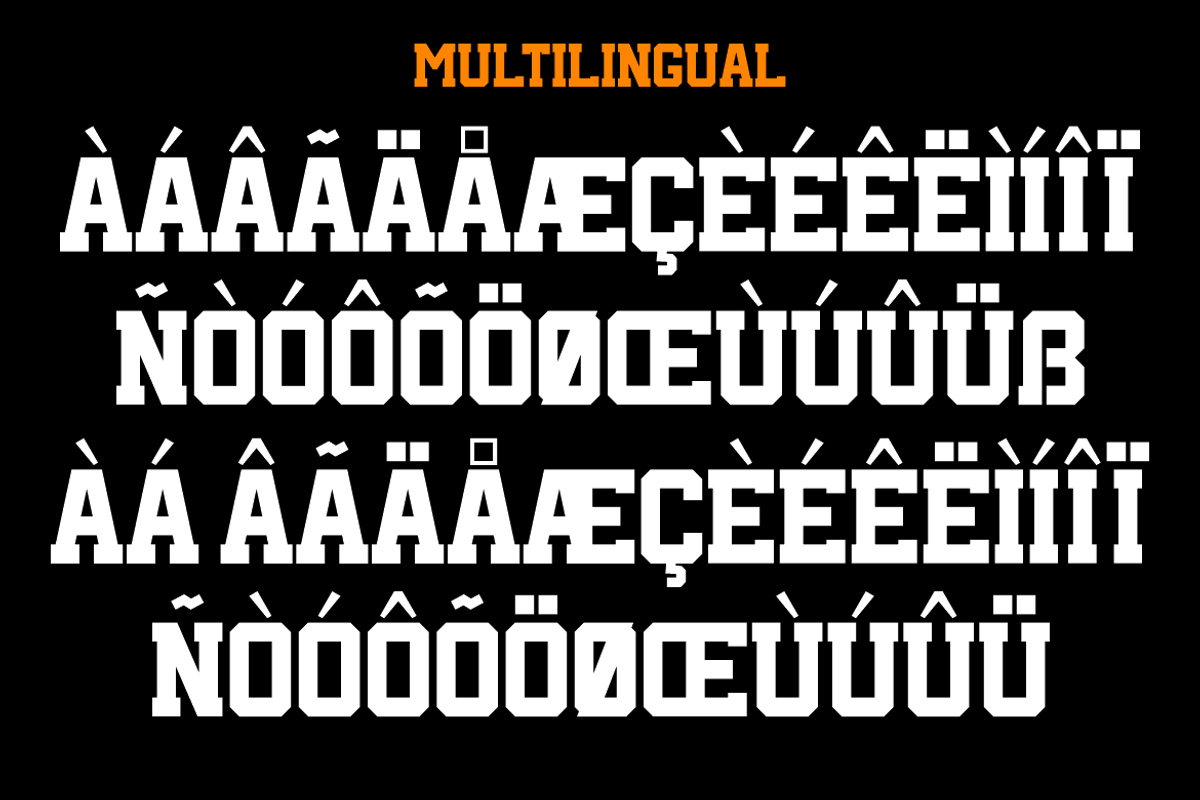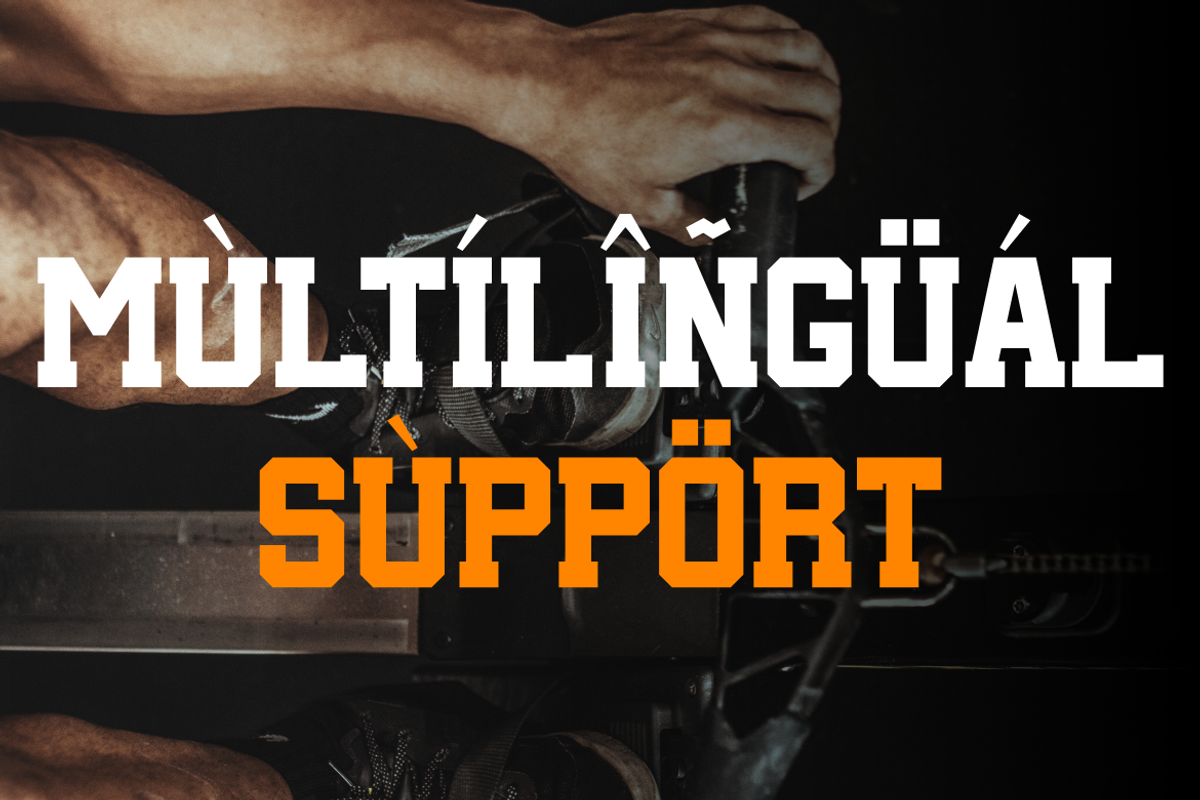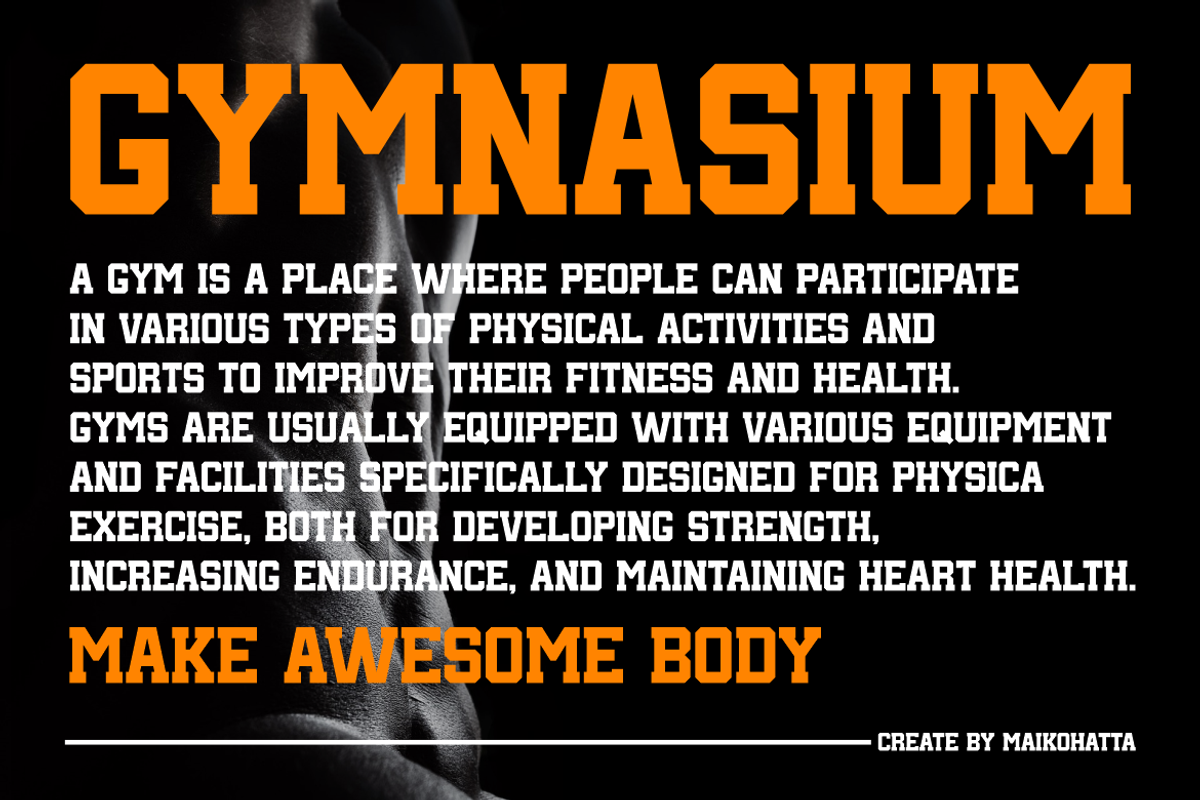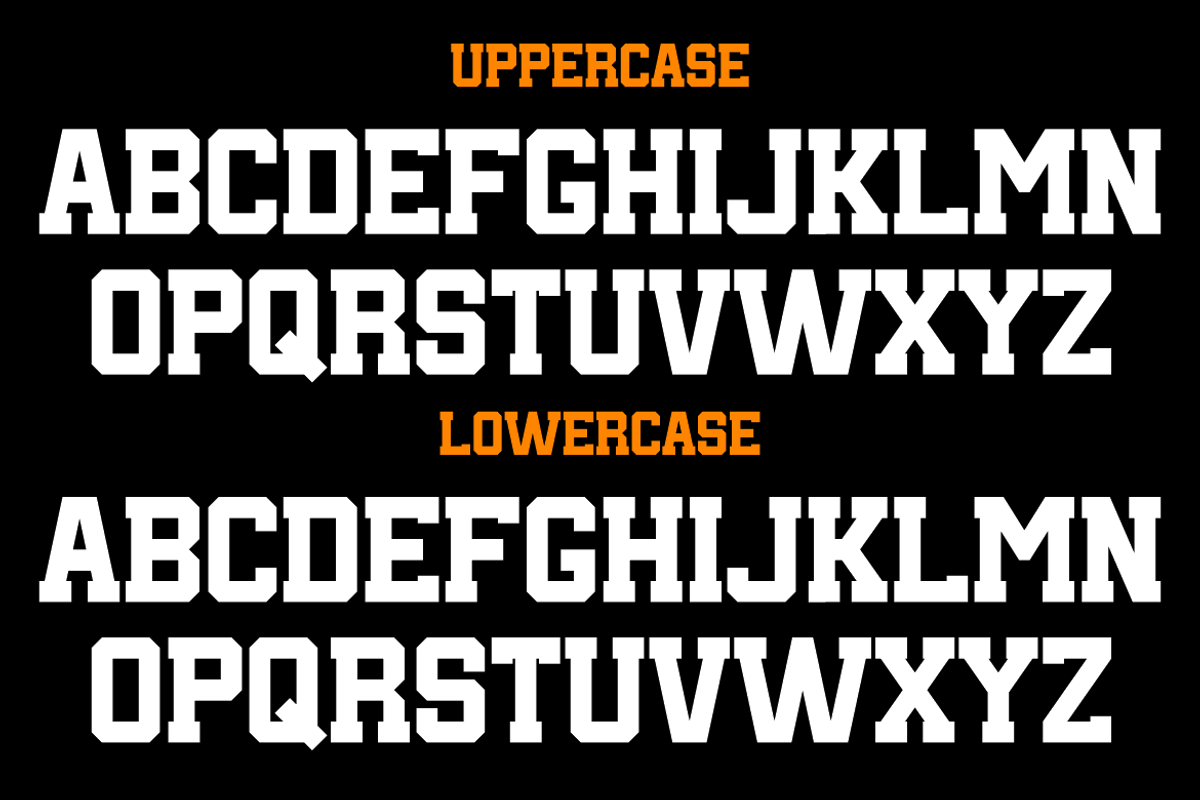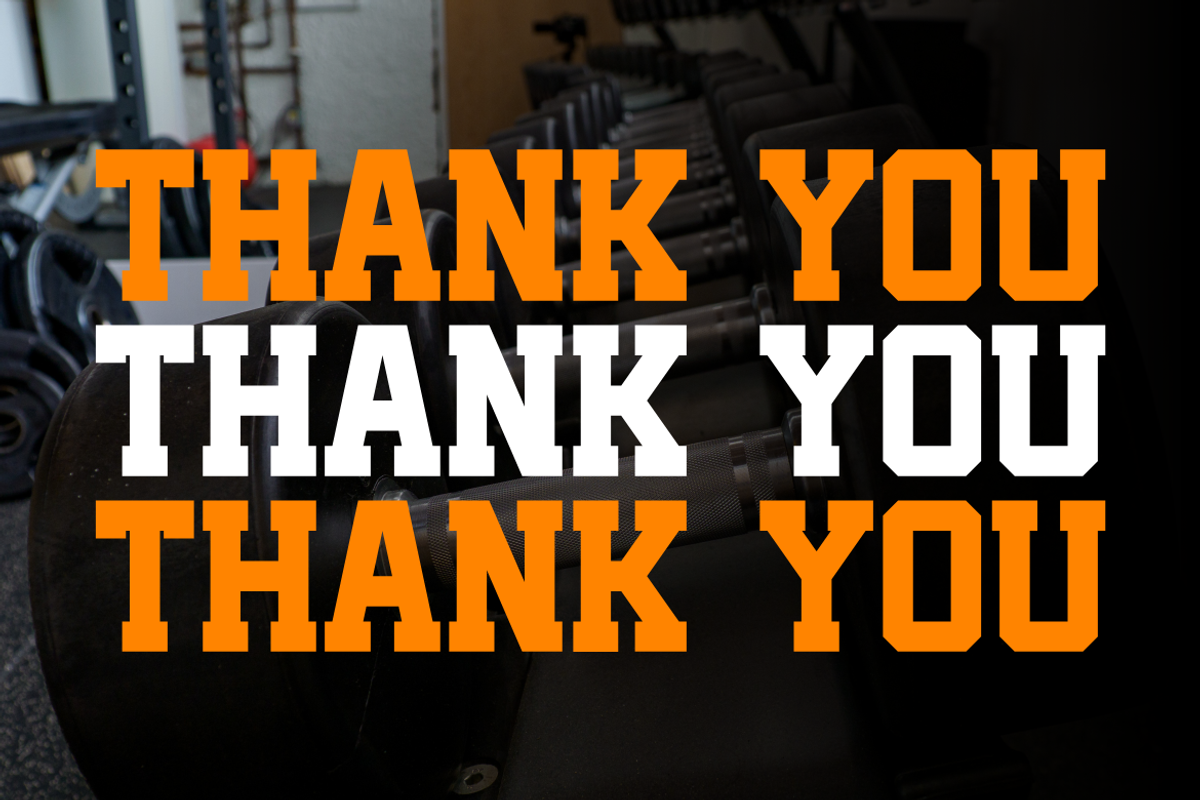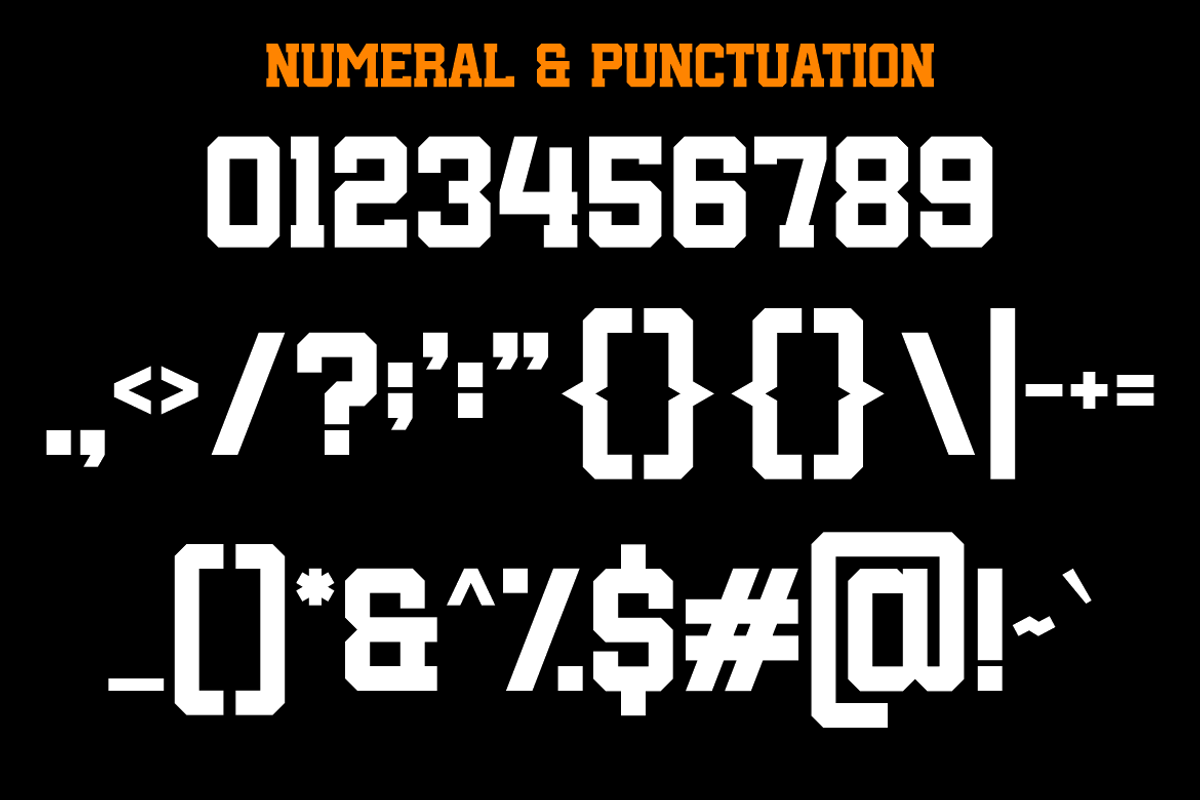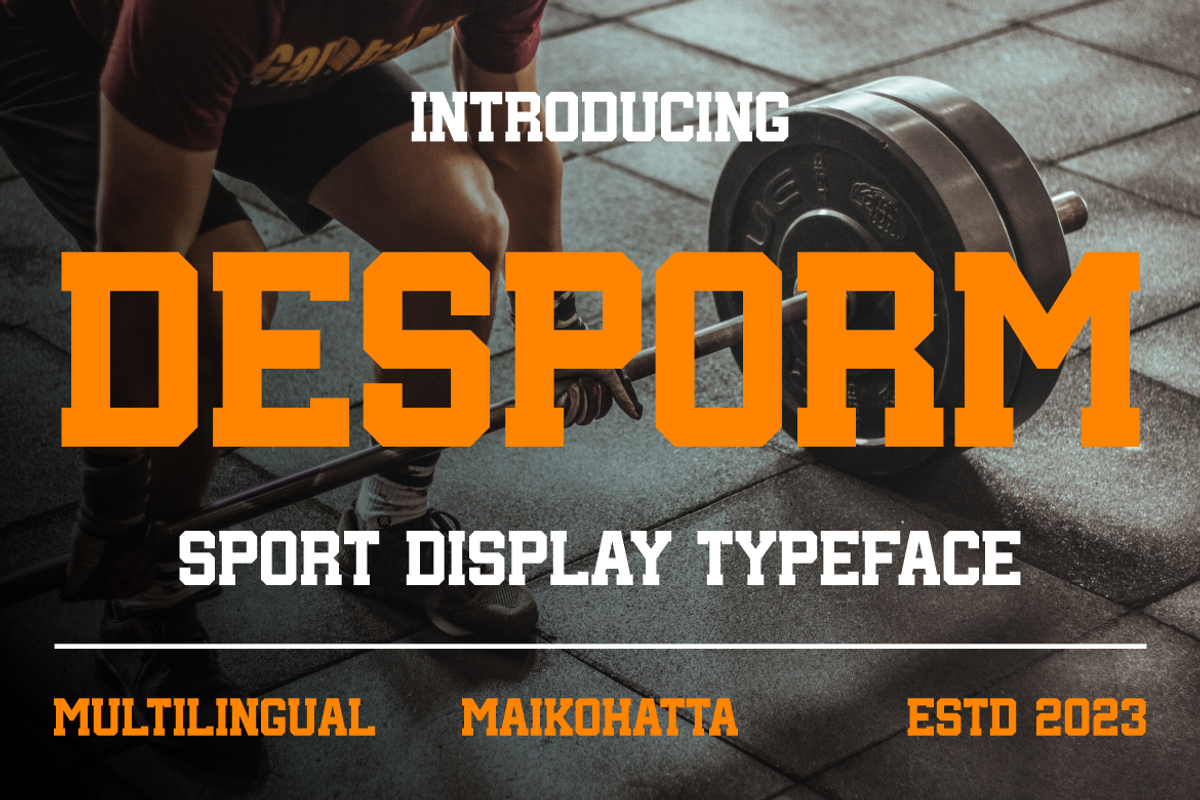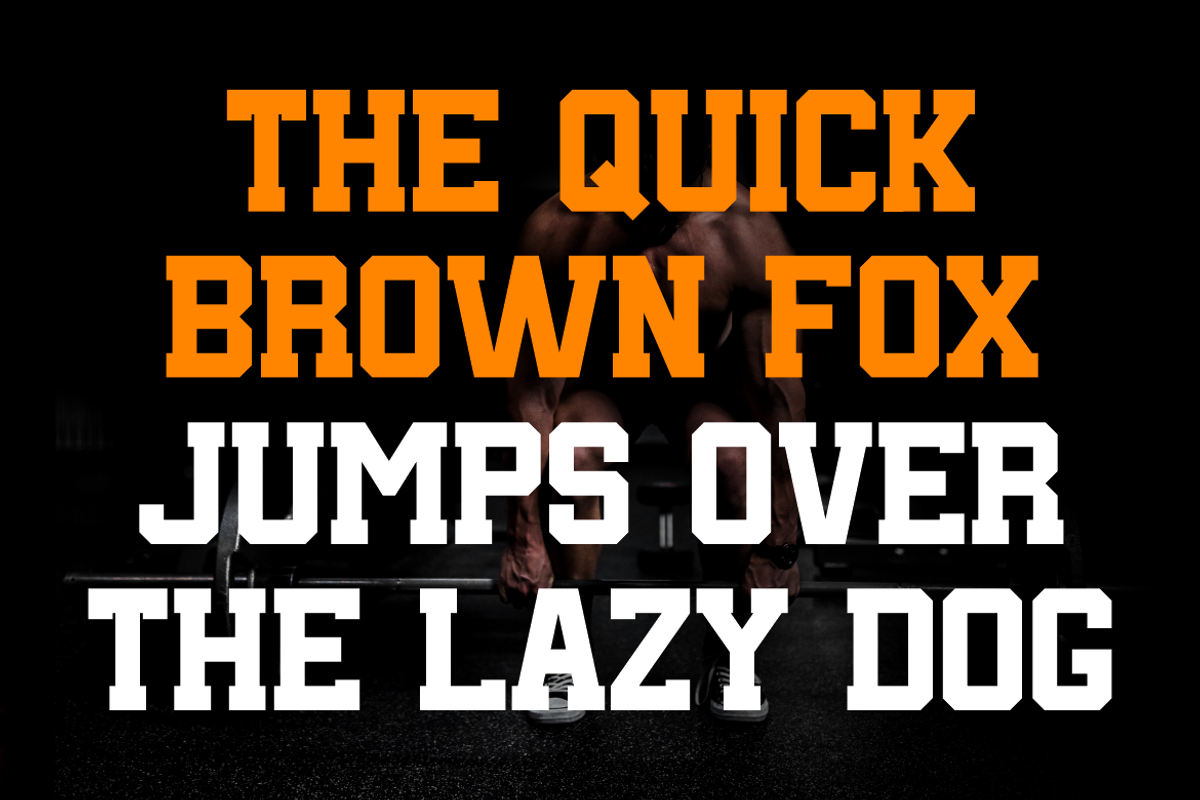
Desporm - Sport Display Typeface
Desporm is a powerful, heavy-duty sport display typeface designed to capture attention and convey strength, energy, and competitive spirit. With its sharp, geometric shapes and robust structure, this typeface is perfect for sports branding, athletic apparel, team logos, posters, and anything that demands a bold presence.
All-caps display font
Blocky and geometric letterforms with sharp corners
Bold and heavy weight, ideal for titles and headings
Multilingual support, enhancing global usability
Best Suited For:
Sports branding
Event posters
Gym and fitness promotions
Game day graphics
Team merchandise
This font makes a strong visual impact and is ideal for designers looking to elevate their athletic or competitive-themed projects.